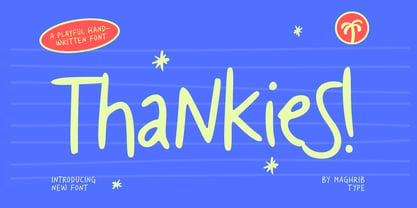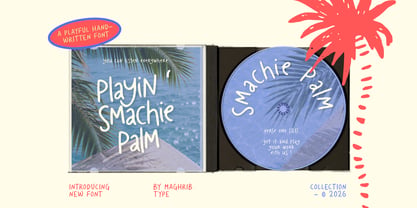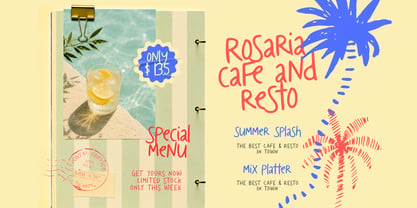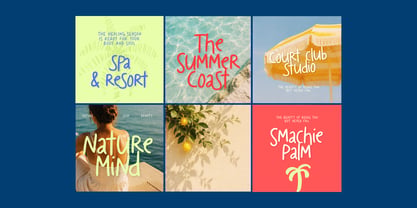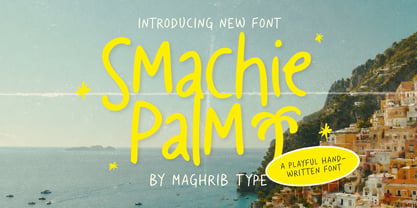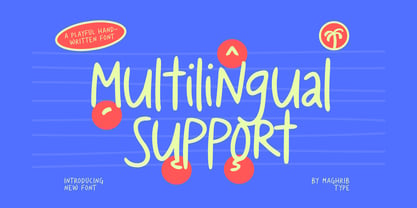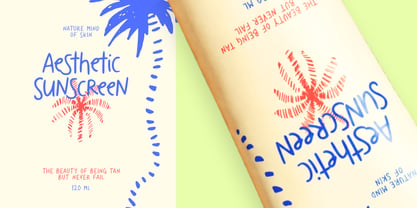
Smachie Palm
Die Schriftfamilie Smachie Palm wurde von Rizky Setyaludin entworfen und von Maghrib Type veröffentlicht. Smachie Palm enthält 1 Stile. Mehr über diese Familie
Smachie Palm is a cheerful hand-drawn font with a relaxed handwritten style inspired by summer adventures and tropical vibes. Its playful letterforms and natural strokes make every design feel warm, personal, and full of character.
Ideal for branding, social media graphics, posters, greeting cards, packaging, invitations, logos, and creative projects that need a fun handcrafted look.
Bring a touch of sunshine to your typography with Smachie Palm.